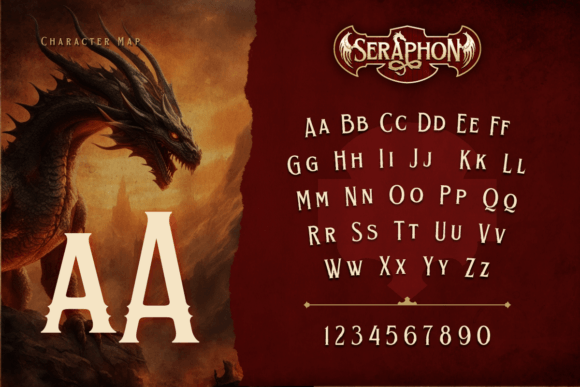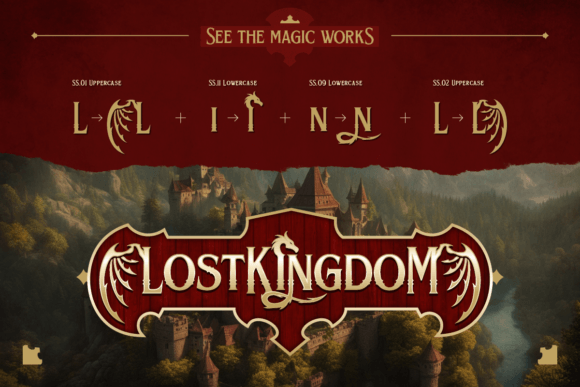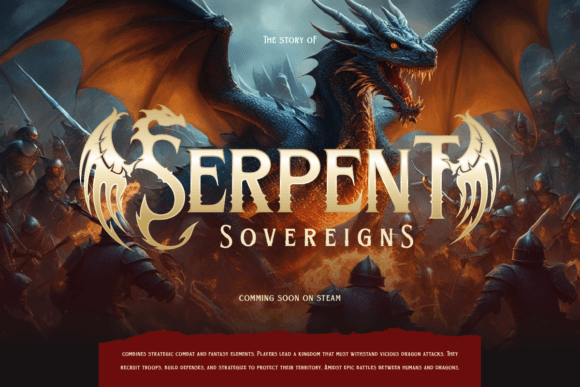
Introduction to Seraphon Font
Have you ever stared at a blank page, waiting for the perfect font to bring your creative project to life? You’ve scoured through countless design resources, only to find something that’s almost, but not quite, what you envisioned. That’s where the Seraphon Font comes in – a game-changing, high-quality font that will transport your text to a realm of fantasy and magic.
As a designer, you know the value of a well-chosen font in setting the tone for your design. With the Seraphon Font, you’ll be able to breathe life into your projects with its majestic design and sharp lines. Whether you’re working on a fantasy novel cover, a movie poster title, or a game title, this font is sure to impress. And the best part? It’s available for free download, complete with a transparent background that makes it easy to integrate into your design.
Key Features of Seraphon Font
- Unique, elegant design perfect for creative projects and designs requiring a sophisticated touch
- Designed with a high level of detail and precision, resulting in a crisp and clear font at resolutions up to 300 DPI
- Includes a wide range of characters, including uppercase and lowercase letters, numbers, and special symbols
Honest Review: Seraphon Font
As a designer, I’m always on the lookout for high-quality fonts to elevate my creative projects. Recently, I stumbled upon the Seraphon Font, and I’m excited to share my honest review with you.
- ✨ High-quality design: The Seraphon Font has a sleek and modern look that’s perfect for a variety of design projects.
- ⚠️ Limited font styles: The Seraphon Font only comes in a few styles, which might limit its versatility for some designers.
- ⚠️ Not ideal for complex text: While the font is great for headings and titles, it might not be the best choice for complex text or body copy.
Overall, I’m impressed with the Seraphon Font’s high-quality design and transparent background. While it may have some limitations, it’s still a valuable resource for designers working on creative projects. I’d definitely recommend it for its free download and sleek design.
The Seraphon Font is a free design resource perfect for any creative project that requires a high-quality, elegant font. With its transparent background, this font can be easily integrated into various design applications.
Tips for Getting the Most Out of Seraphon Font
For best results, use the Seraphon Font in conjunction with a high-quality image or background.
Experiment with different font sizes and styles to achieve the desired look.
The Seraphon Font is perfect for:
Wedding invitations and stationery
Business cards and marketing materials
Editorial and publishing projects